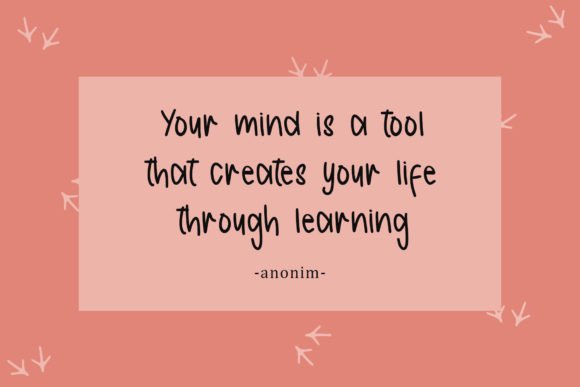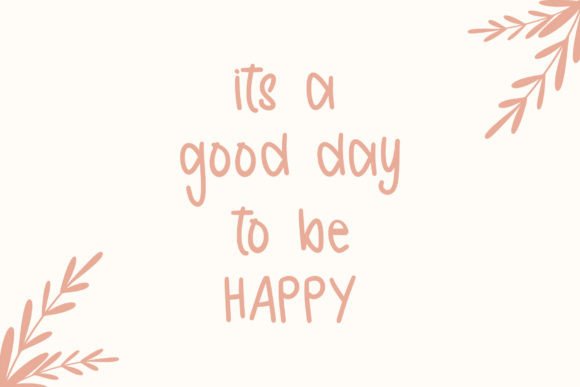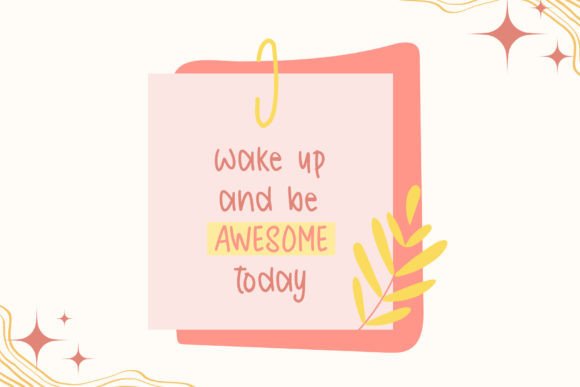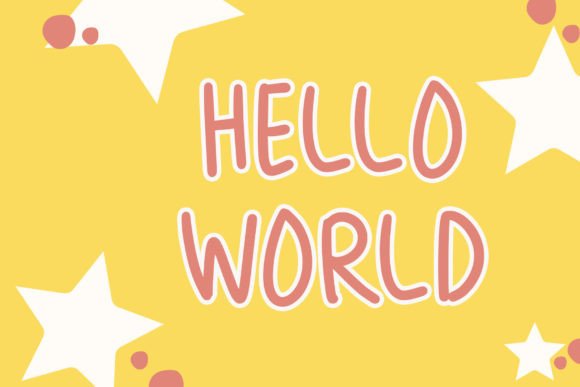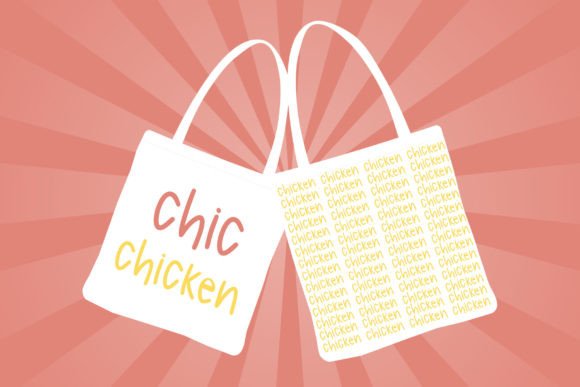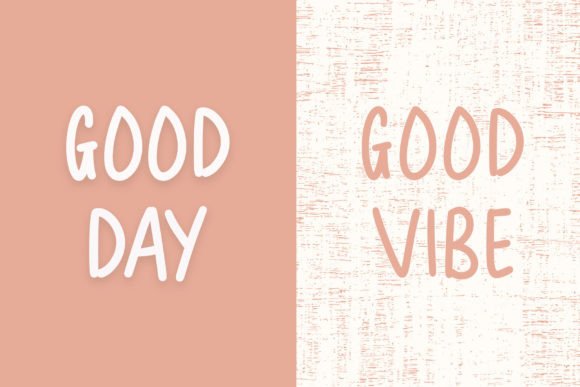
Introduction to Chic Chicken Font
Chic Chicken is a delightful and whimsical handwritten typeface that adds a playful charm to any design.
With its lively strokes and organic feel, it brings a sense of freshness and joy Ideal for food packaging, childrenโs books, greeting cards, and anything needing a touch of fun and creativity.
Chic Chicken Font offers exceptional quality and versatility, making it a valuable addition to your design toolkit. Whether you’re creating for personal projects or commercial use, Chic Chicken Font delivers professional results.